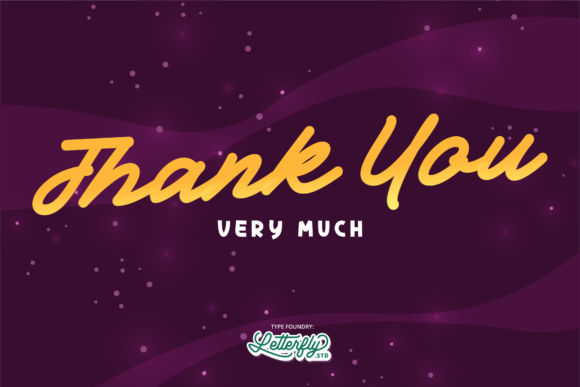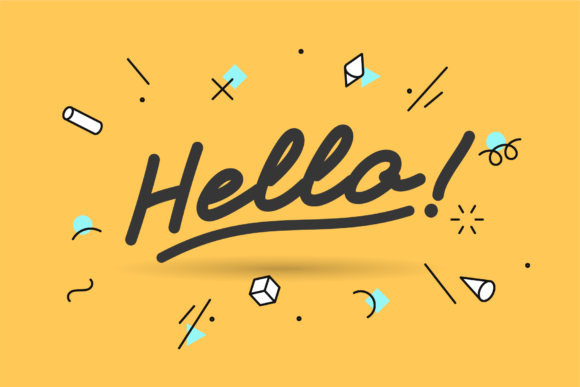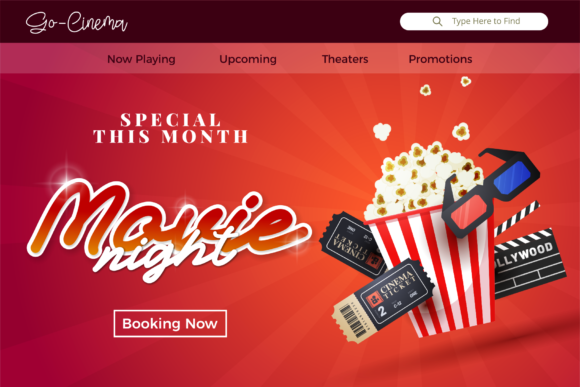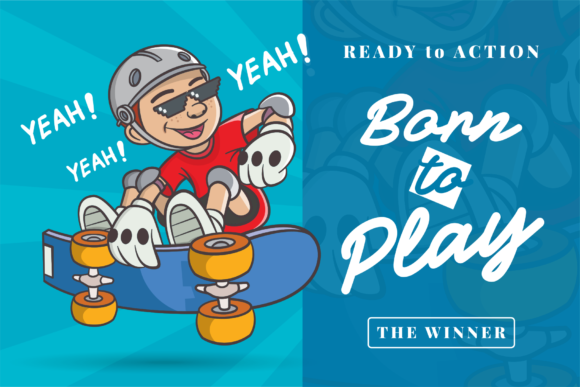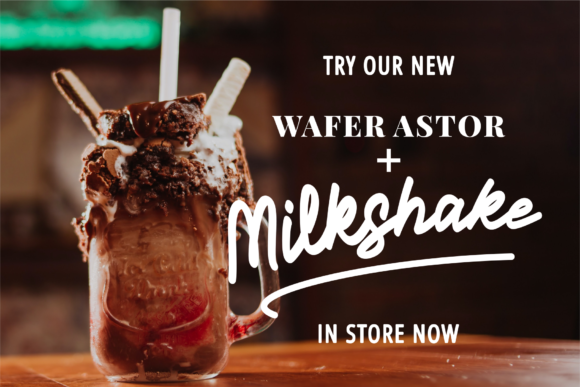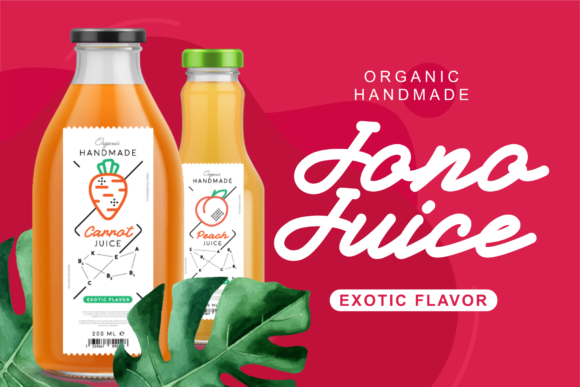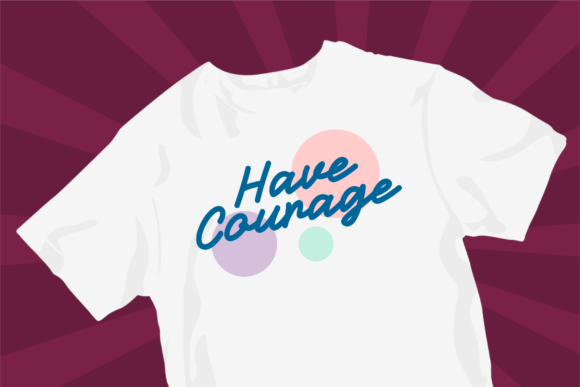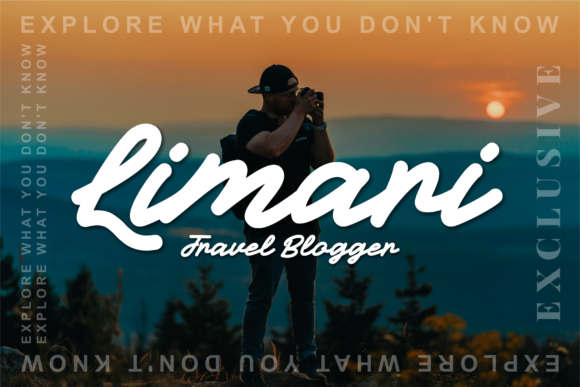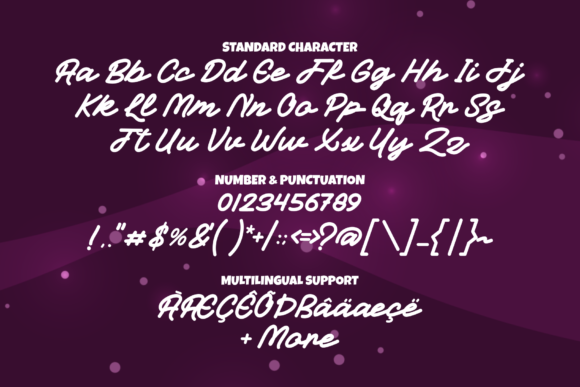
Gackey Font
About Gackey Font
Gackey is a beautiful and cute paint brushed script font. Not too thin and not too thick, balanced and varied, this font was designed to enhance the beauty of your projects.